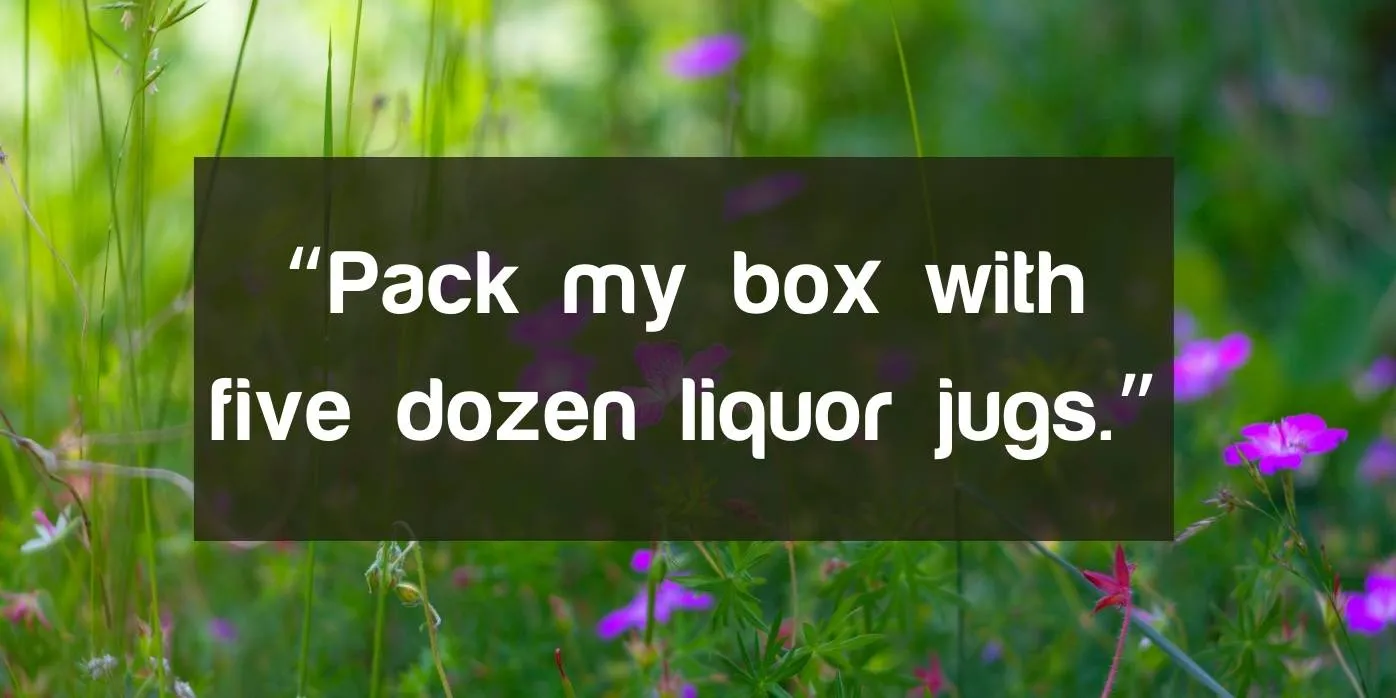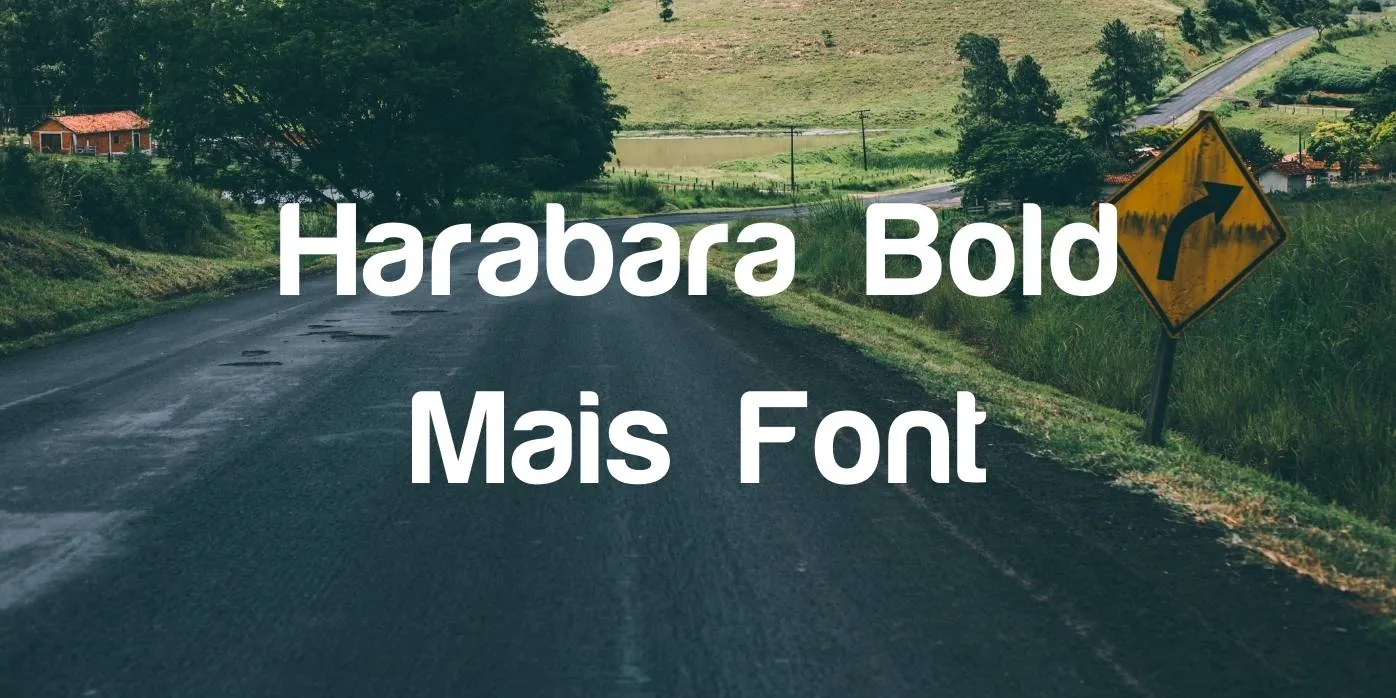
Harabara Bold Mais Font
Harabara Bold Mais Font is developed by Brazilian designer Andre Harabara. This typeface belongs to the Display font family. It has 20 styles and weights. This awesome Font is a perfect choice for advertising.